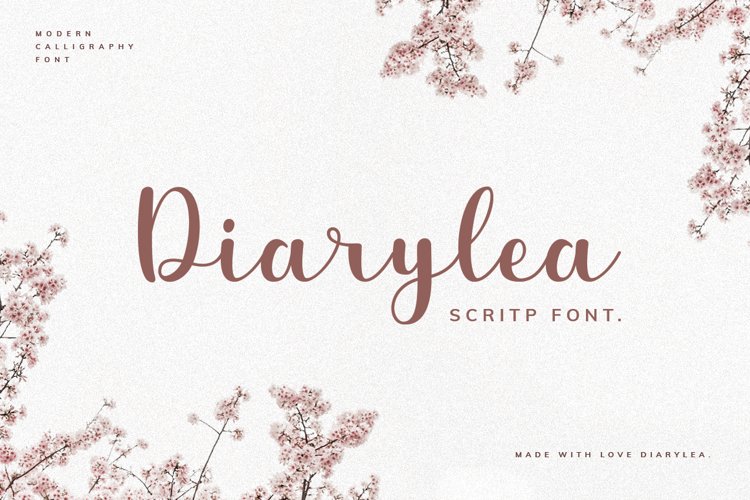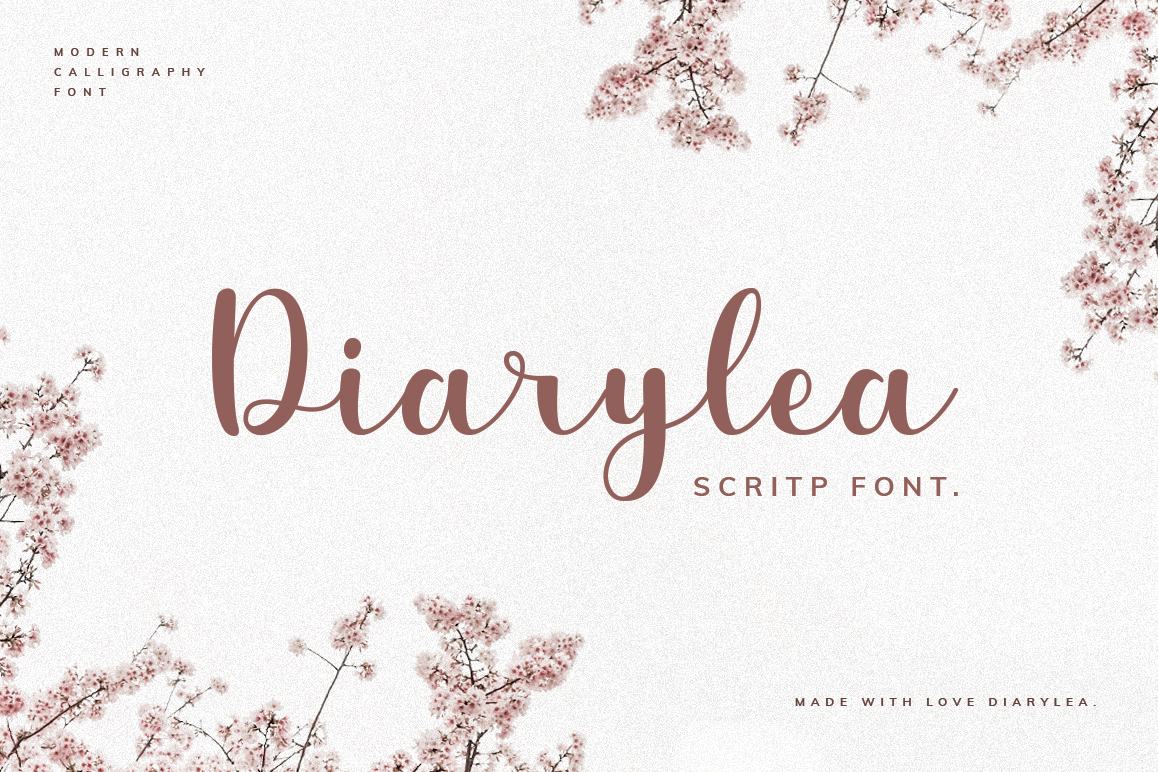
Introducing our latest product Diarylea Script Font!. It is free-flowing, feminine, fashionable and friendly. Diarylea is perfect for fashion, e-commerce brands, trend blogs, or any business that wants to appear casual and chic.